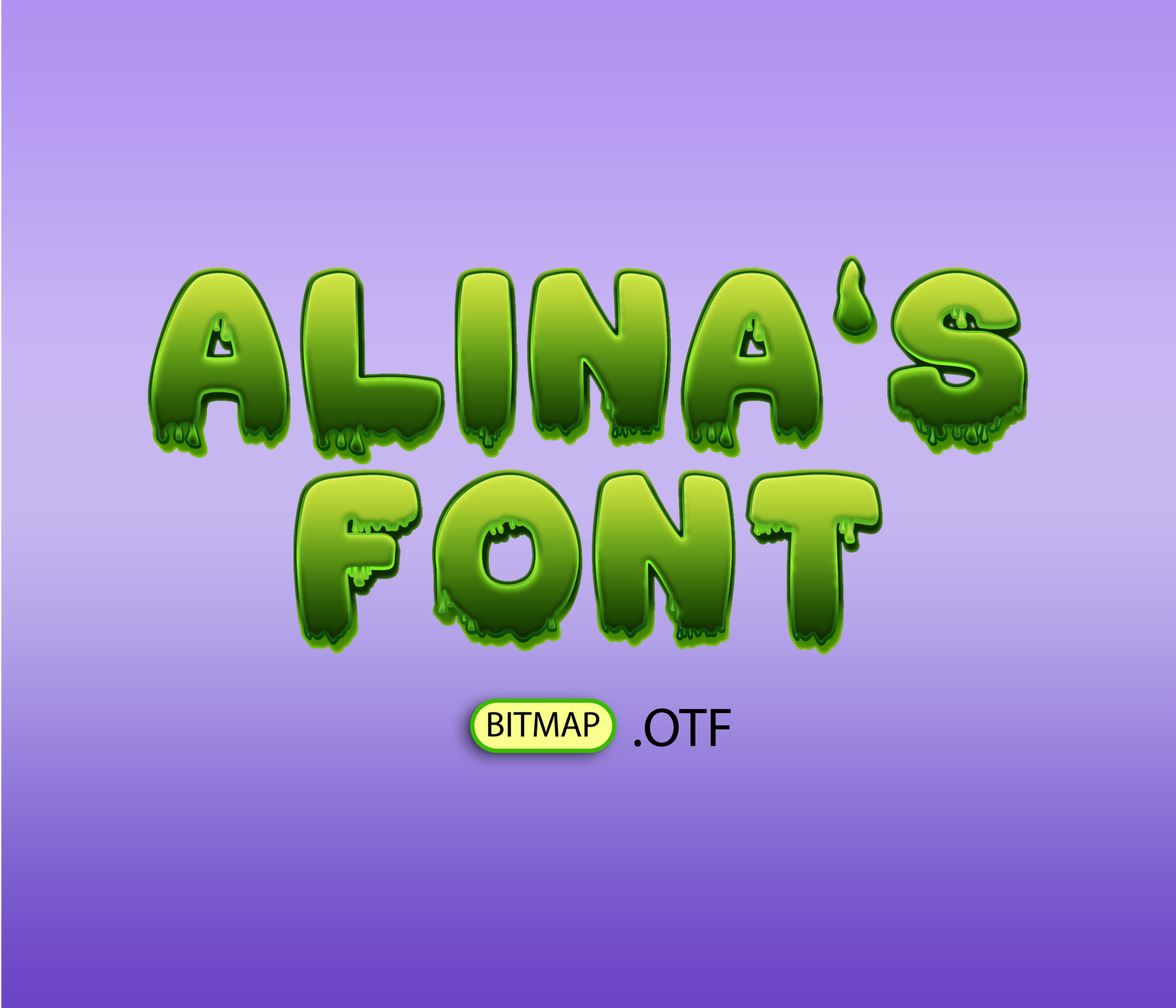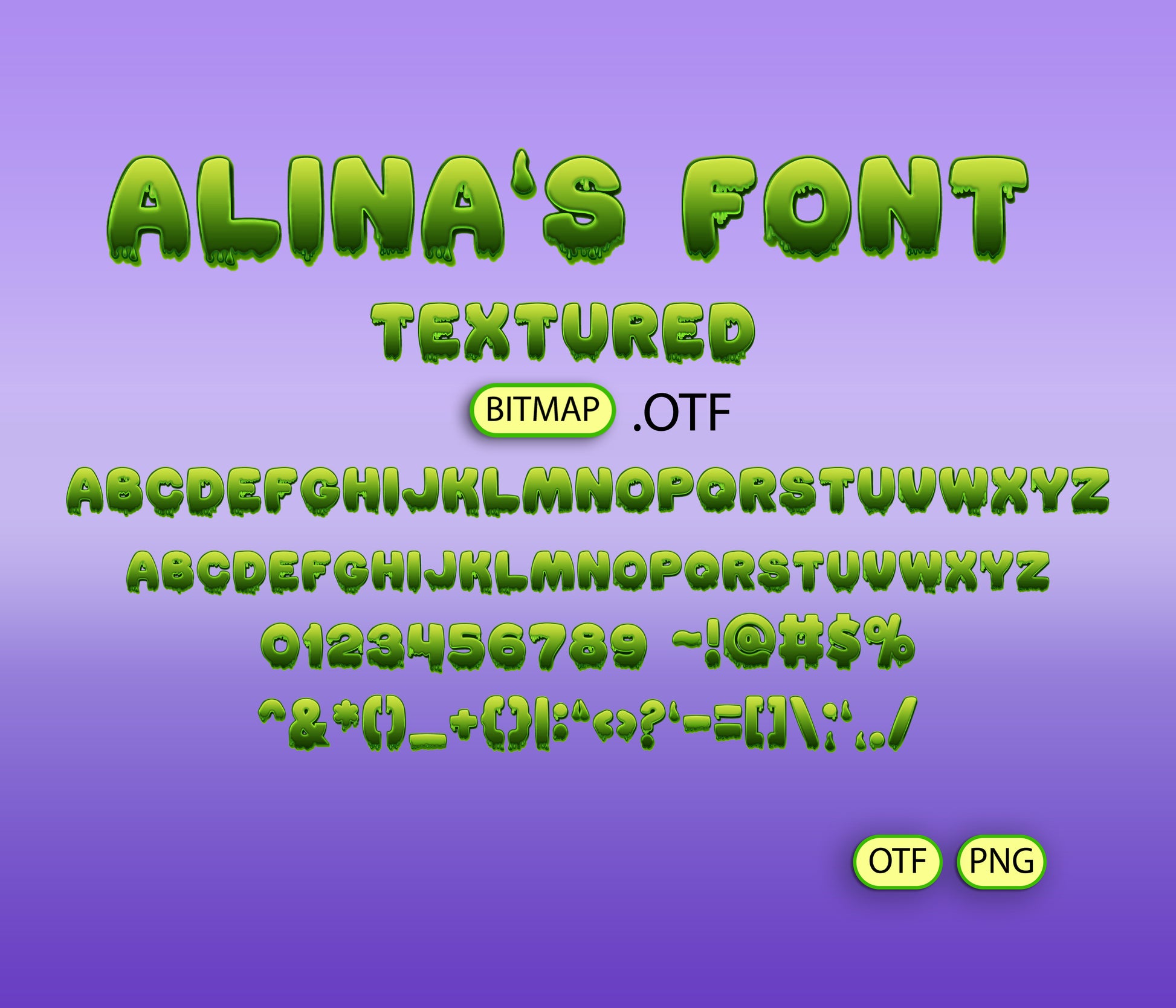
Slime Halloween Font Textured Oozy Spook
Step into the ghoulish world of creepy crawly terror with our Slime Halloween font, capturing the essence of viscous frights and dripping dread. Perfect for horror events, haunted house designers, spooky content creators, and creative professionals, this font brings the slimy, eerie spirit of Halloween nightmares to your projects. Create spine-chilling invitations, monster-themed merchandise, or digital content with the gooey, suspenseful energy of ultimate Halloween scares.
Our Slime Halloween font features dripping, organic shapes and bold characters reflecting the viscous yet terrifying aesthetic of Halloween horror scenarios. Ideal for:
- Horror Events: Create attention-grabbing invites, posters, and banners for Halloween parties, haunted house experiences, and spook-themed gatherings
- Monster Design: Perfect for book covers, movie promotions, and horror-themed party accessories that capture supernatural terror
- Digital Media: Enhance websites, blogs, and social media with dramatic headers and graphics that express fear and creepy atmosphere
- Entertainment Content: Add authentic character to Halloween materials, costume designs, and promotional materials for scary events
- Personal Projects: Bring spooky edge to scrapbooking, DIY crafts, and home decor inspired by the aesthetics of Halloween frights